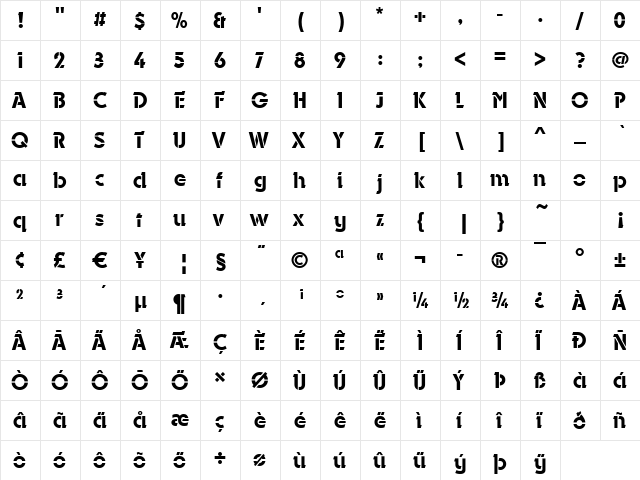
Durango-Stencil-Medium Regular
Design Context for Durango-Stencil-Medium Typeface
Durango-Stencil-Medium borrows the utilitarian aesthetic of stencil lettering, with its characteristic cutaways and no-frills construction lending an industrial edge.
A strong choice for packaging that needs edge, warehouse aesthetics, and rough-and-ready visual identities.
Pro Tip: Use Durango-Stencil-Medium at large sizes on packaging, posters, or apparel where the stencil cutaways read clearly. Avoid small sizes where those gaps become visual noise.